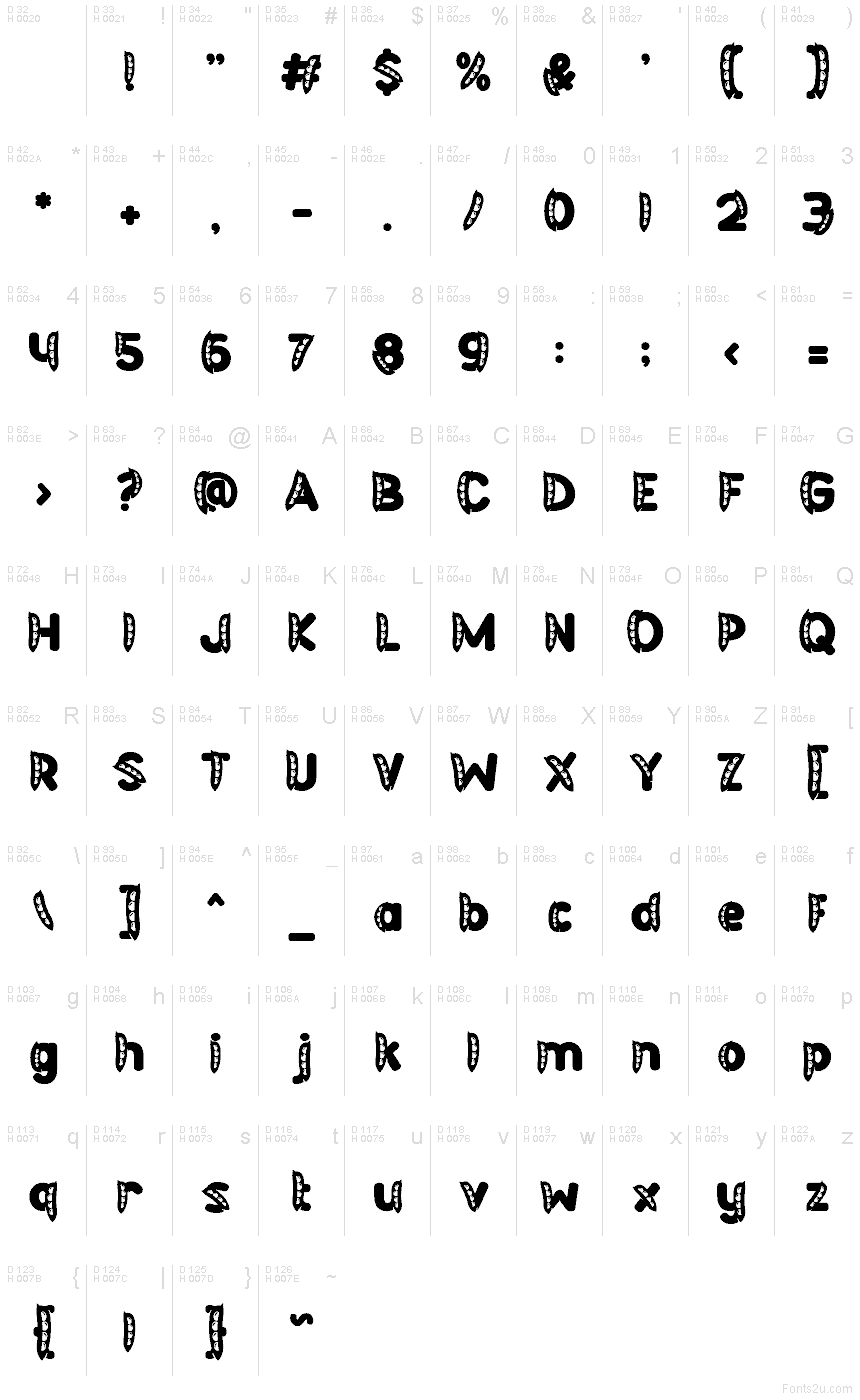
Green Delight Vegetable 2
Green Delight Vegetable 2 font by PutraCetol Studio is a playful display typeface with nature-themed motifs, decorative elements, and a whimsical aesthetic. The bold font draws inspiration from vintage designs and features eye-catching forms that are suitable for children-related products or eco-friendly branding materials.
This free display font can be used for labels, food packaging, merchandise, price tags, titles, greeting cards, posters, logos, advertising slogans, social media posts and templates.